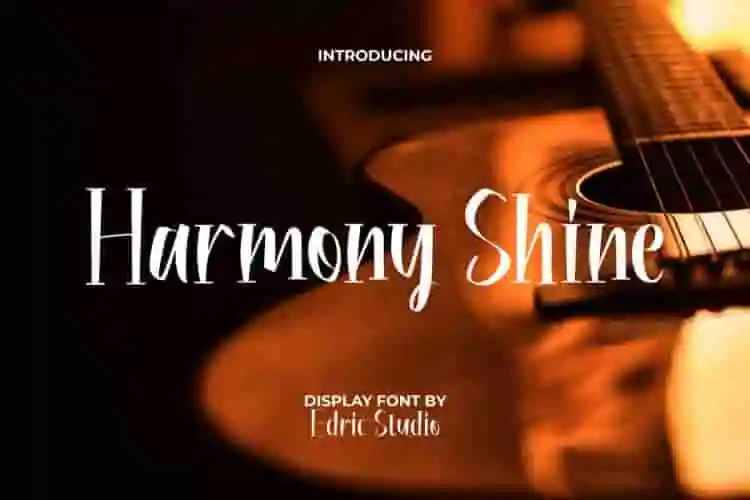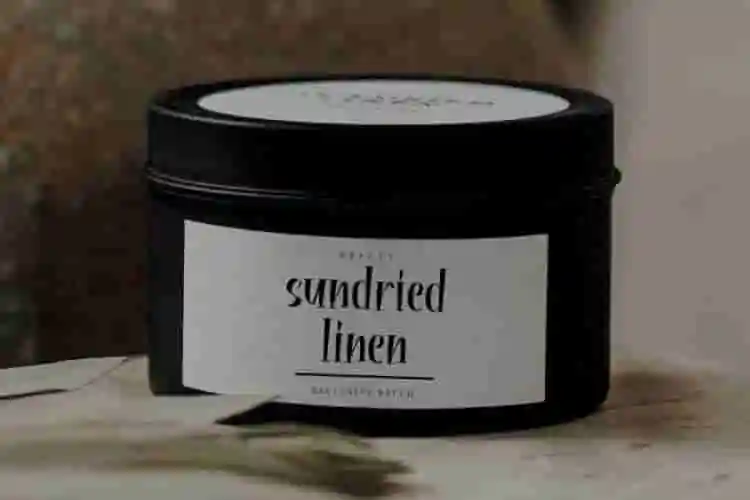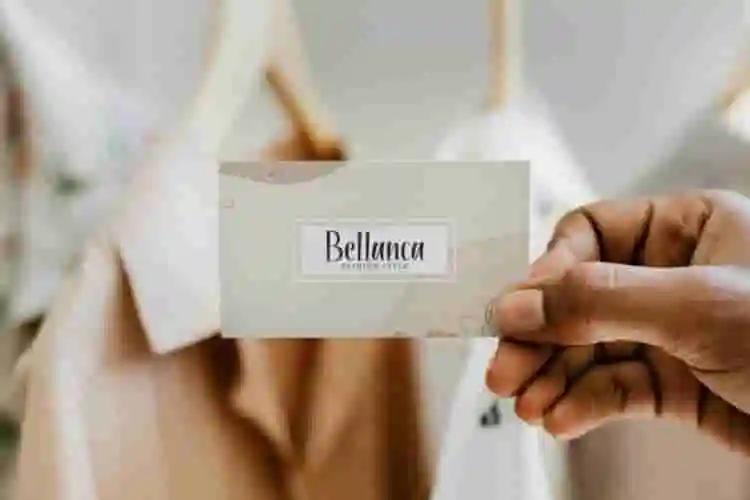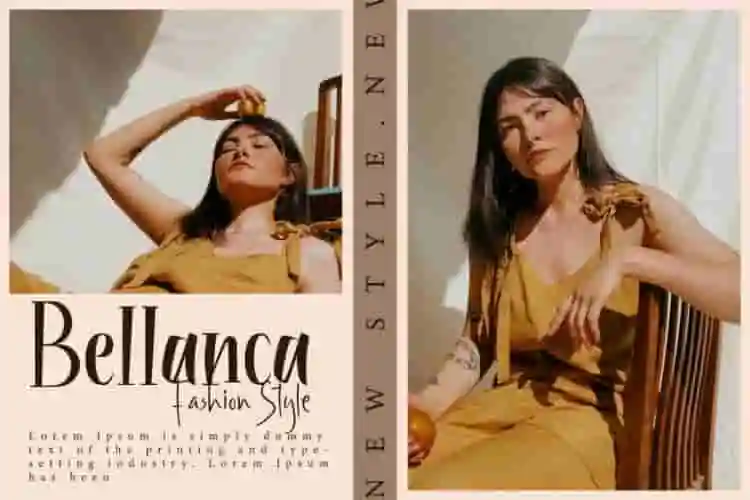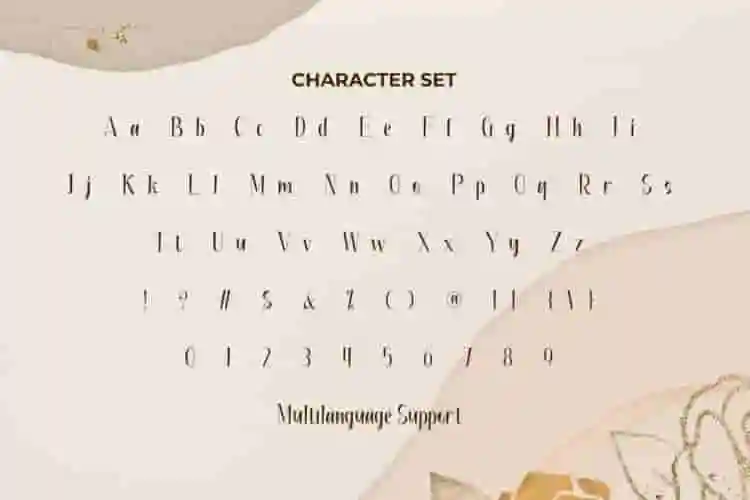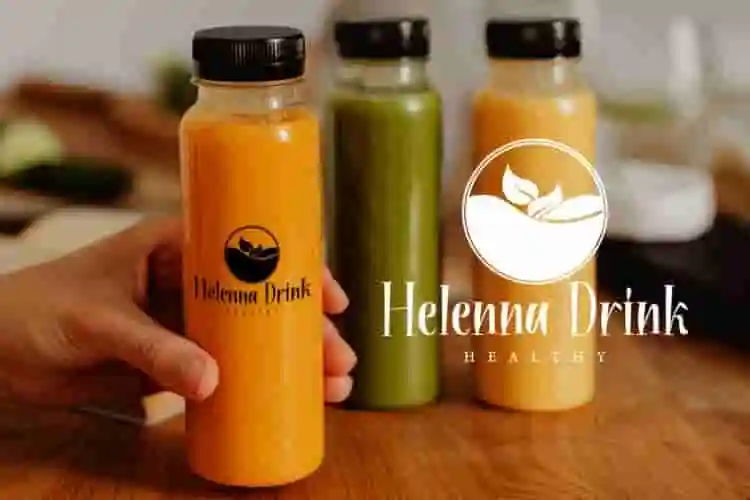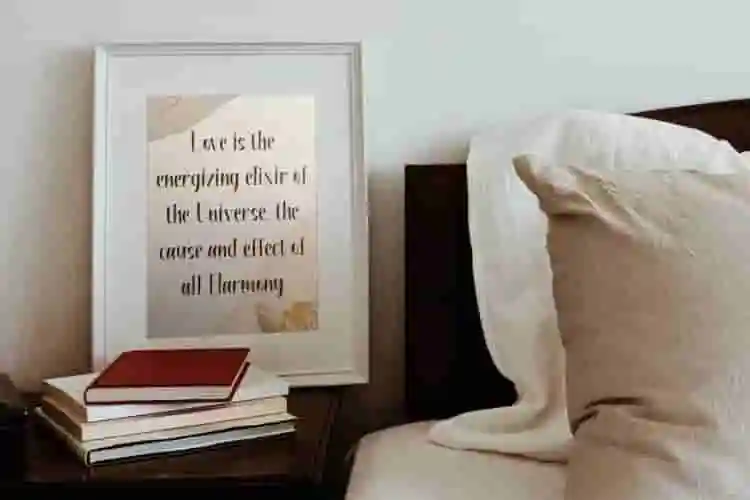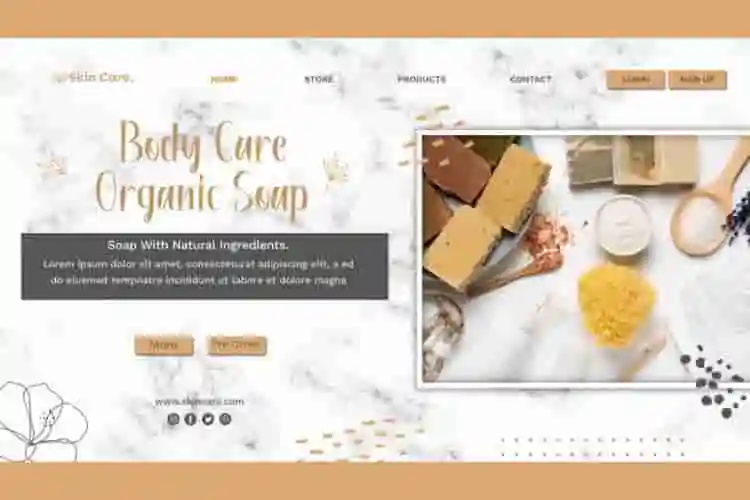
Harmony Shine Font is a charming and casual serif display font inspired from the music industry. This font has an elegant side that can be highlighted in certain designs with the addition of gold which will make it shine perfectly. It will be suitable for any business, such as art, accessories, beauty product, café, entertainment, event organizer, fashion, food and beverages, handicraft, photography, printing, publishing, restaurant, writer, and many more!
Harmony Shine Font comes with full set of Uppercase and Lowercase Basic Characters, Number, a large range of Punctuation, and Symbol. It has a beautiful characters set, perfectly managed with well spaced and kerning. Harmony Shine Font will be able to complement for any design (with extended license) including: brand image, cover, custom design, label, merchandise, packaging design, poster, quote, screen print, signage, stationery, sticker, title, website, etc.
Meet Harmony Shine, a graceful display font that brings beauty, balance, and elegance into every letter. With smooth curves, delicate details, and a modern touch, this font is perfect for designers who want their words to shine—subtly but beautifully.
Introducing Harmony Shine Display Font, a modern, graceful typeface crafted to add beauty and balance to any project. This display font is designed to shine in large-scale use—making your headlines, logos, or packaging effortlessly stunning.
- Elegant & Modern Display Style
- Soft and Stylish Curves